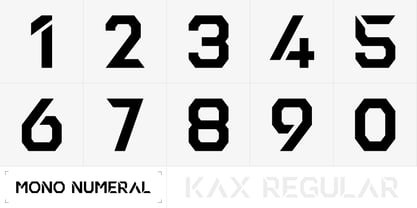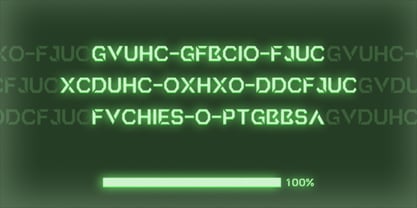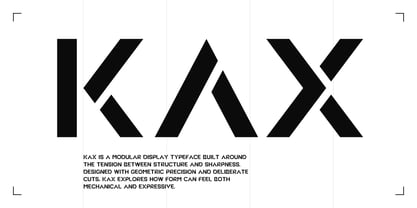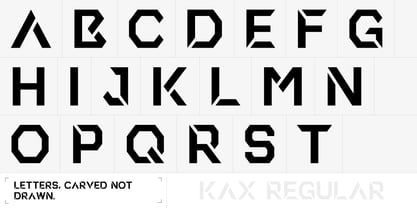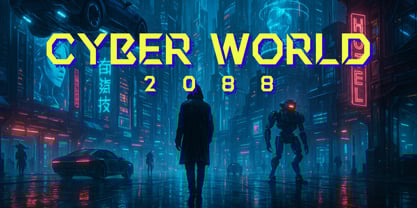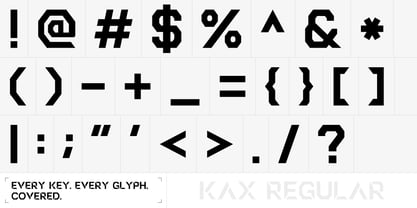
KAX
por Monohedro
La familia tipográfica KAX fue diseñada por Kinsey Liu y publicada por Monohedro. KAX contiene 1 estilos.
KAX is a geometric display typeface defined by sharp cuts, strong diagonals, and modular construction. Inspired by industrial design and digital systems, it delivers clarity with tension—ideal for branding, tech, UI, and editorial headlines. It includes a complete set of keyboard symbols and tabular (monospaced) numerals, making it as practical as it is expressive.
Monohedro is an independent type foundry founded by Kinsey, a type designer and design engineer working at the intersection of typography, interface design, and frontend development. The foundry focuses on modular, geometric, and experimental letterforms that explore the tension between structure and expression. Monohedro’s typefaces are designed to function across branding, editorial, and digital systems—precise in form, but rich in tone.